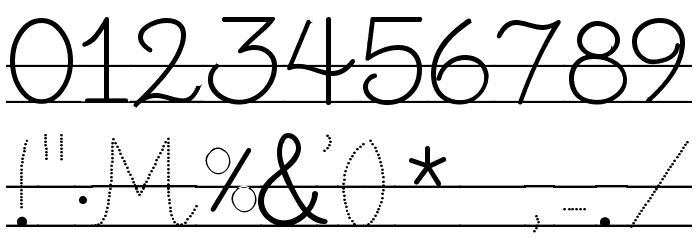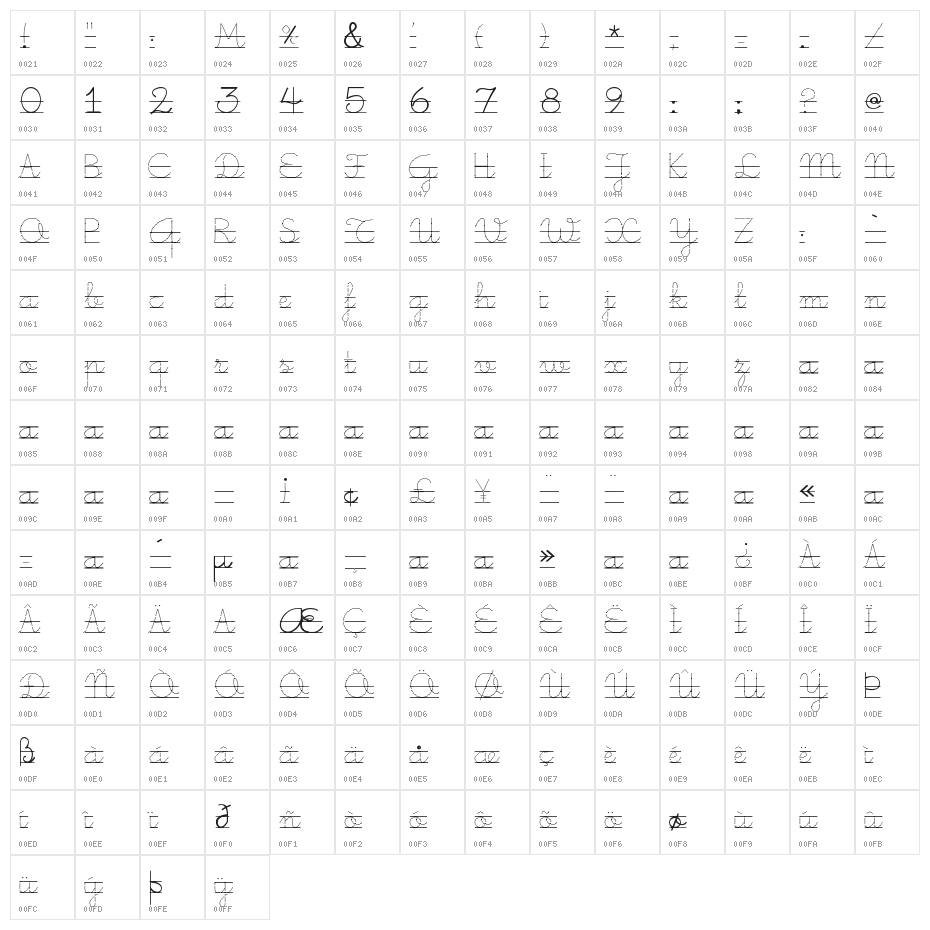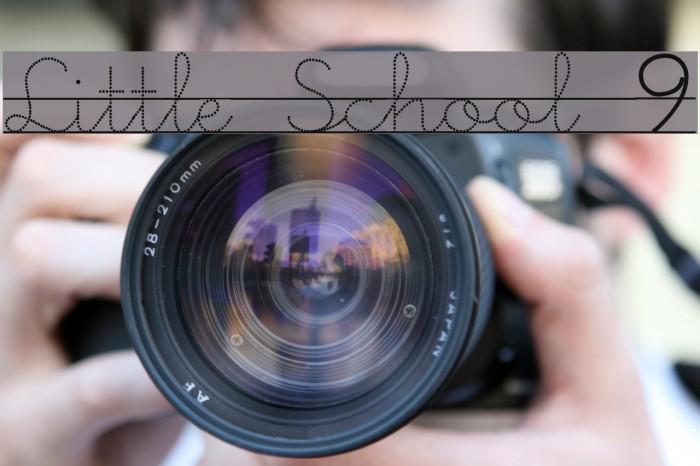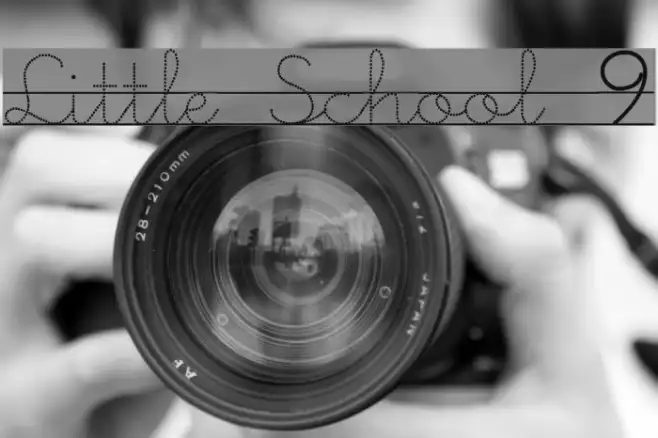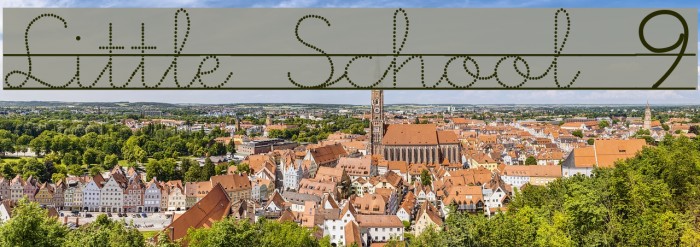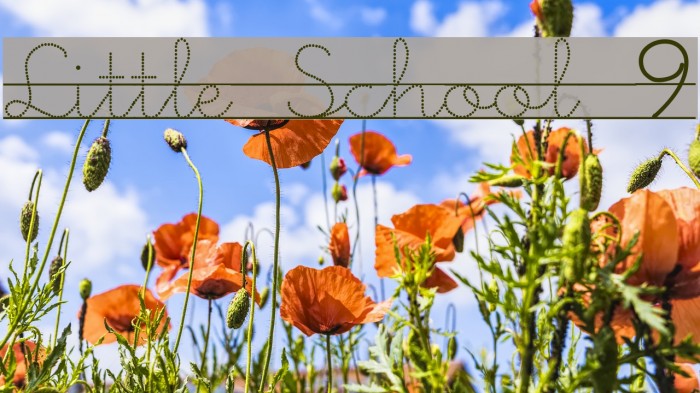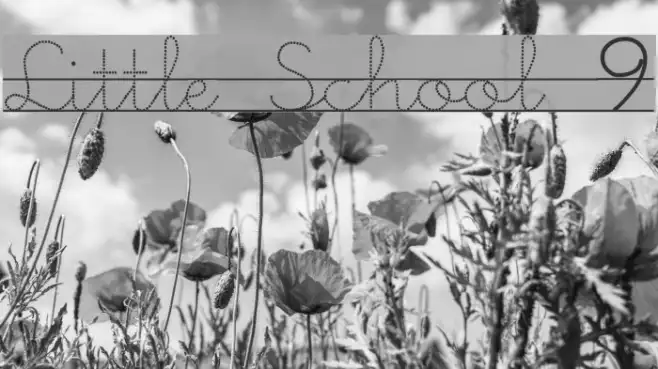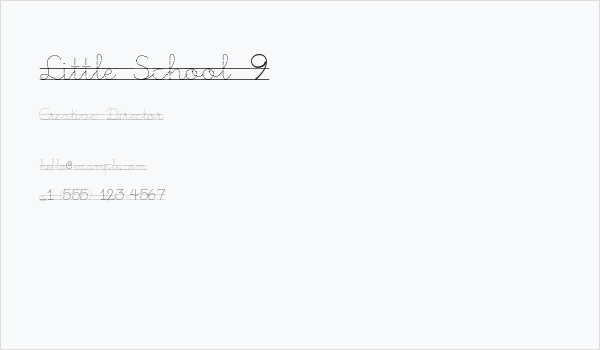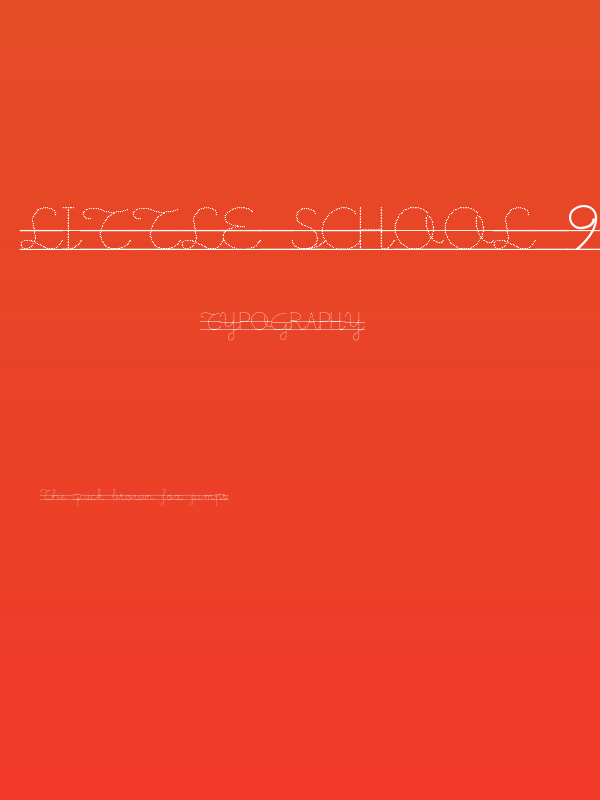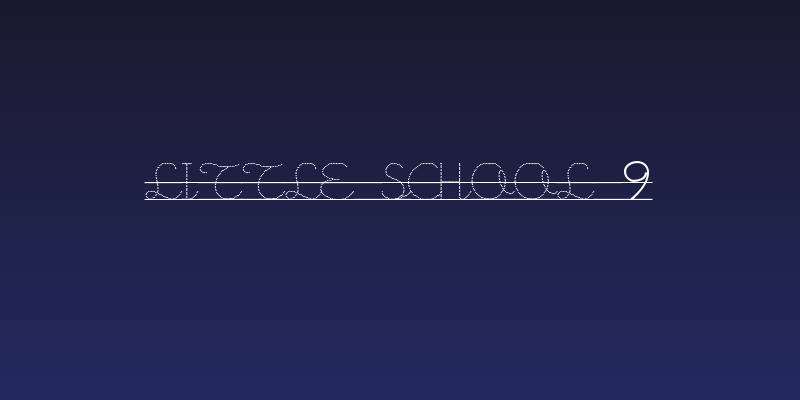
Little School 9 Font
Little School 9 Description
This font features a playful, educational style reminiscent of handwriting practice sheets used in early schooling. The uppercase and lowercase letters are crafted with dotted lines, guiding learners in forming each character. The numerals and special characters maintain a clean, simple design, ensuring clarity and ease of recognition. The overall appearance is both functional and charming, making it ideal for educational materials aimed at young learners. The dotted lines provide a visual aid for tracing, which is beneficial for developing handwriting skills.
| Overall Style | Educational, Playful |
| Use Case | Educational materials, Handwriting practice |
| Proposed Projects | Ideal for educational materials, children's books, and handwriting practice sheets. |